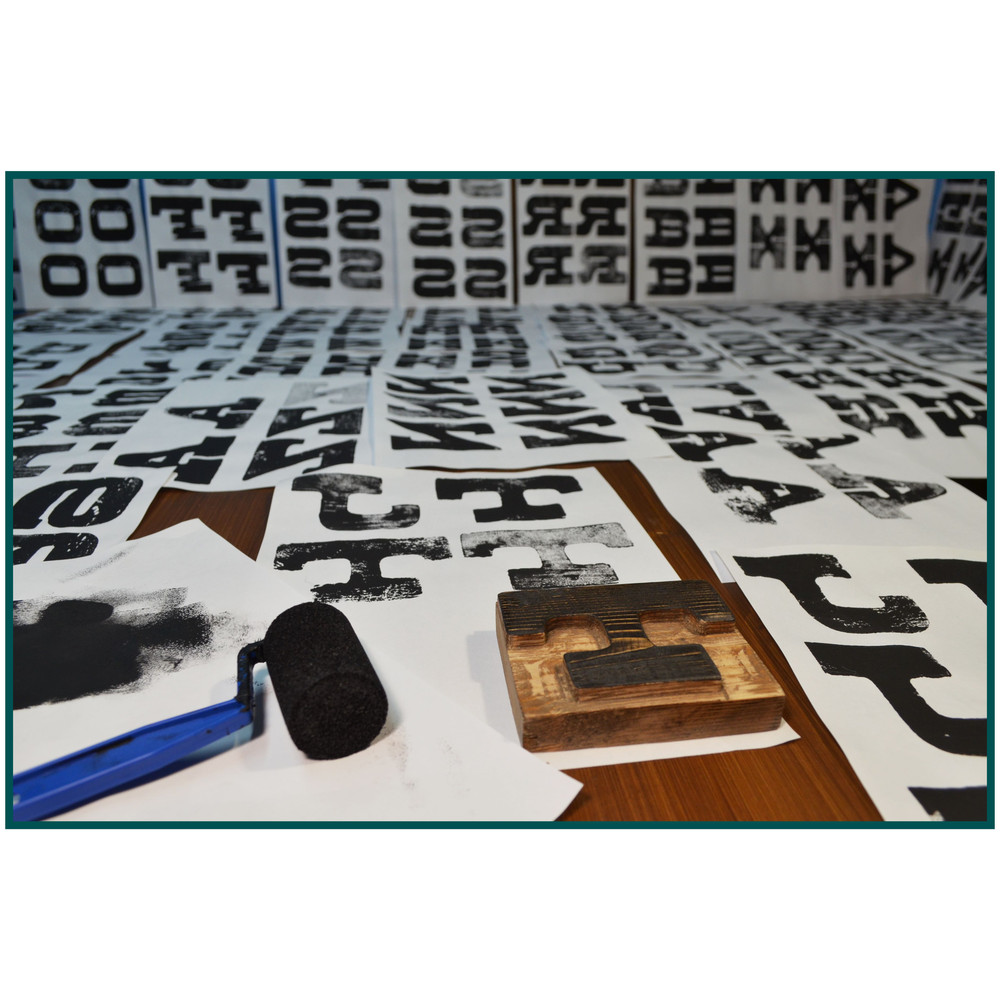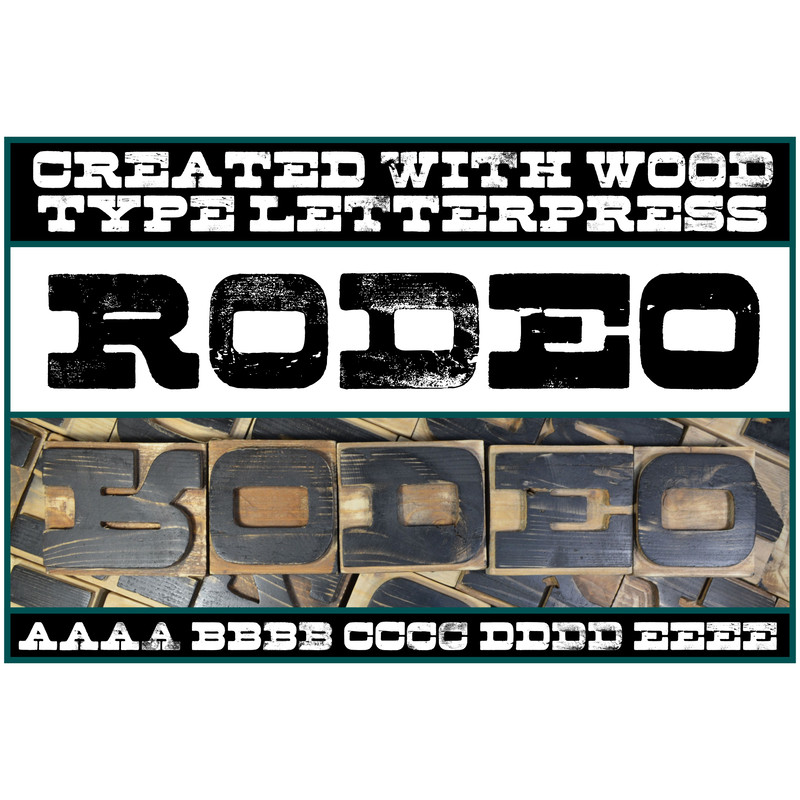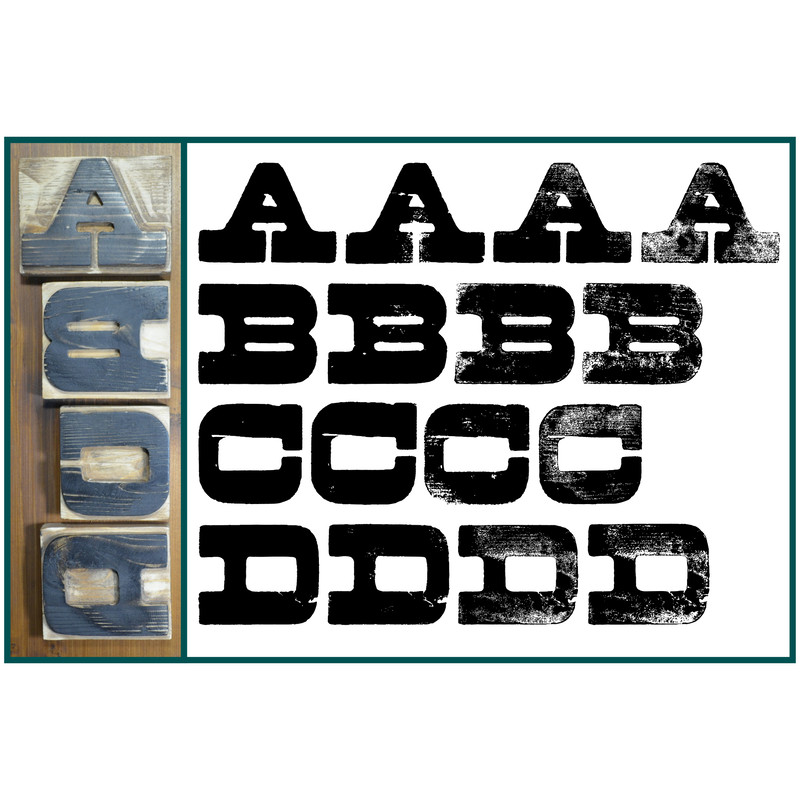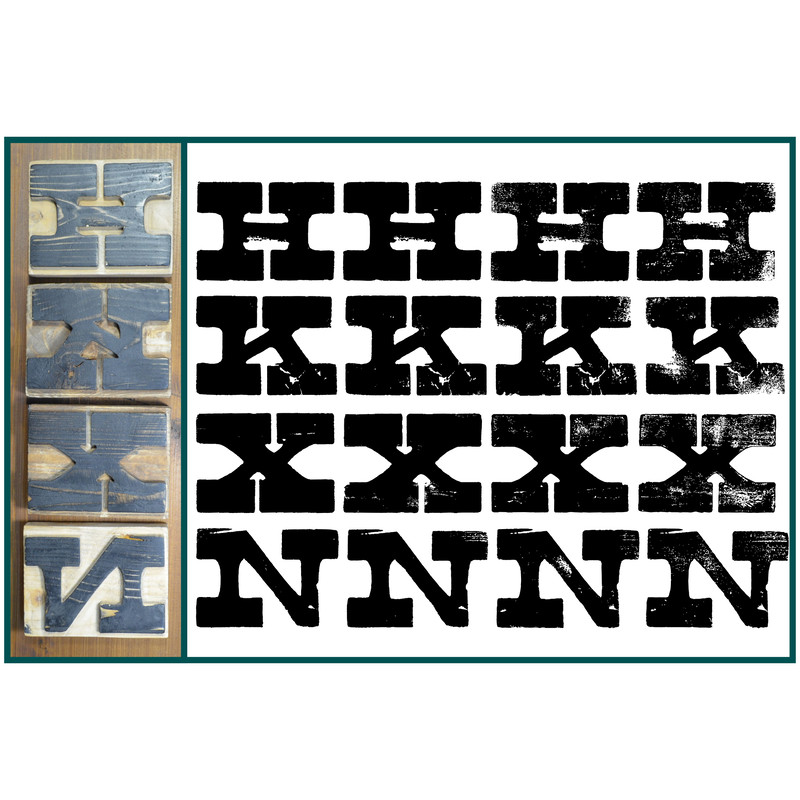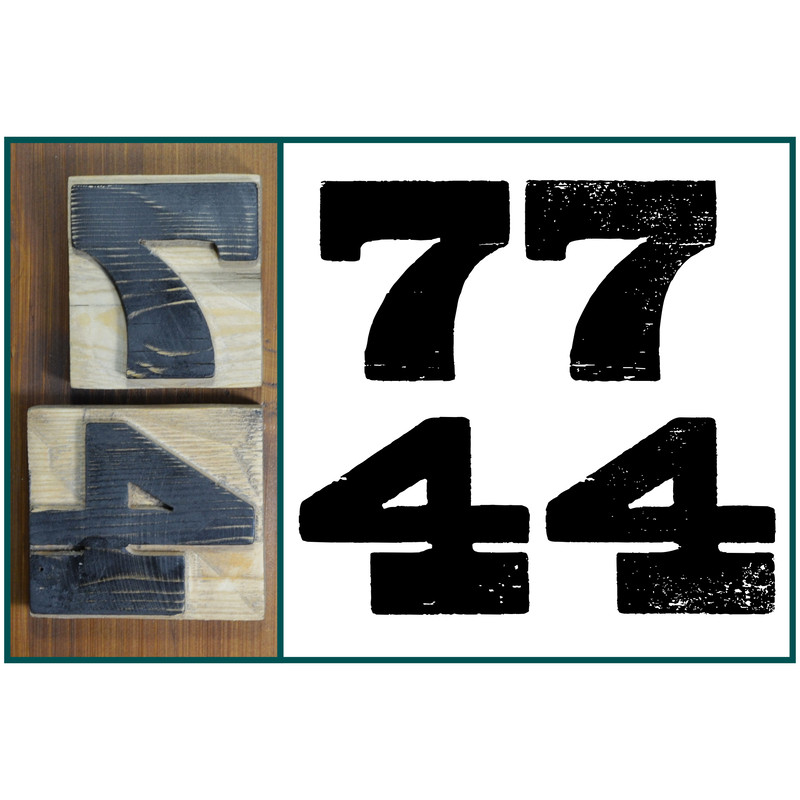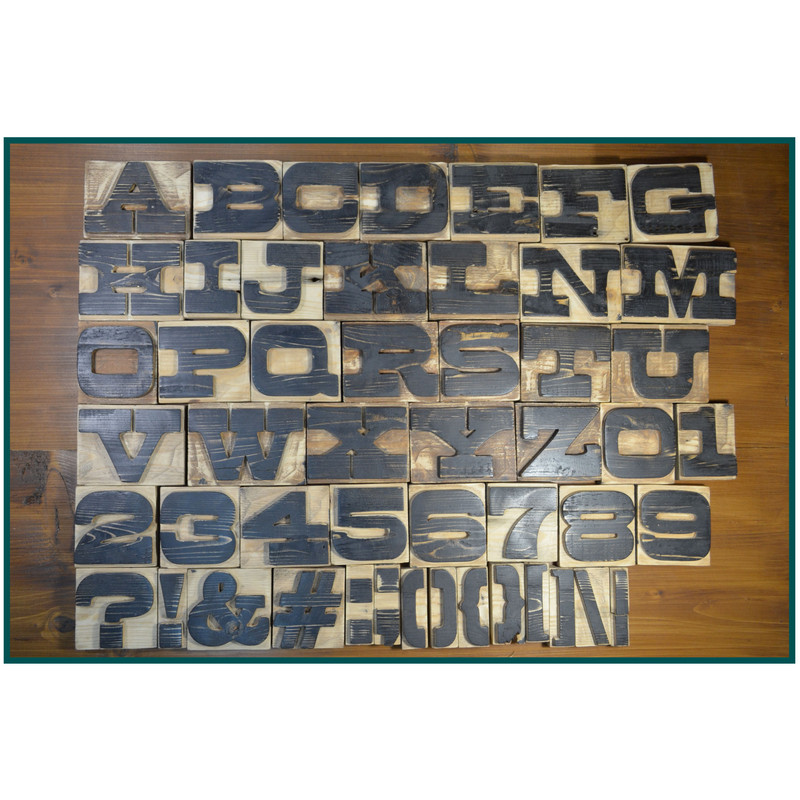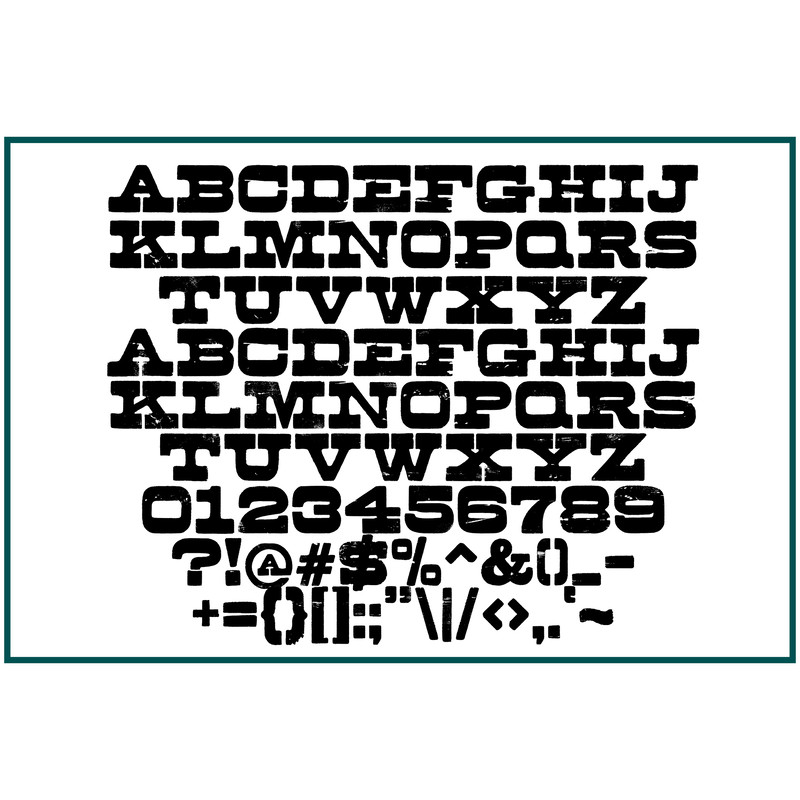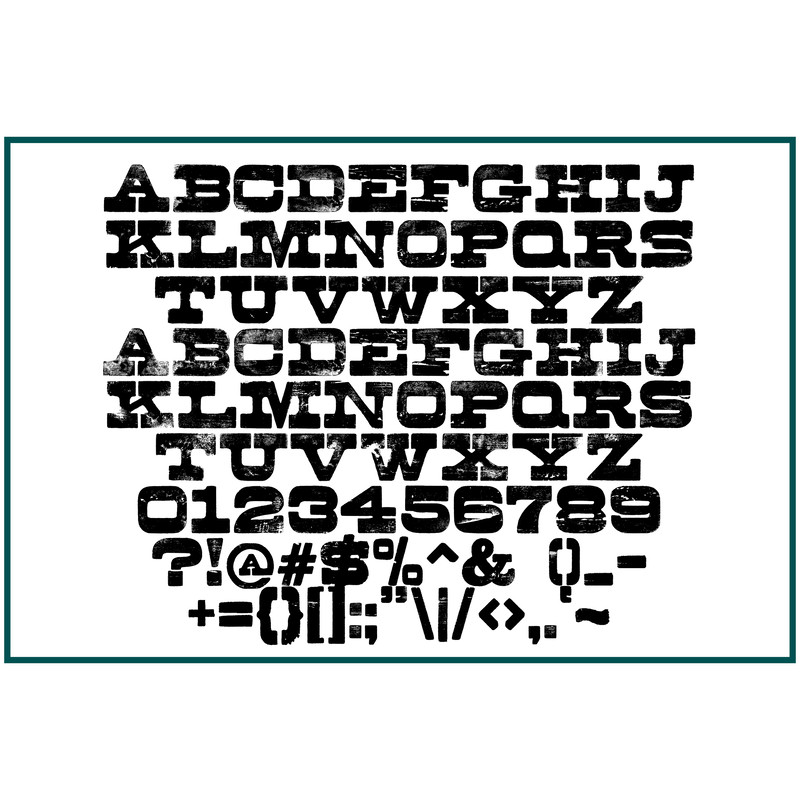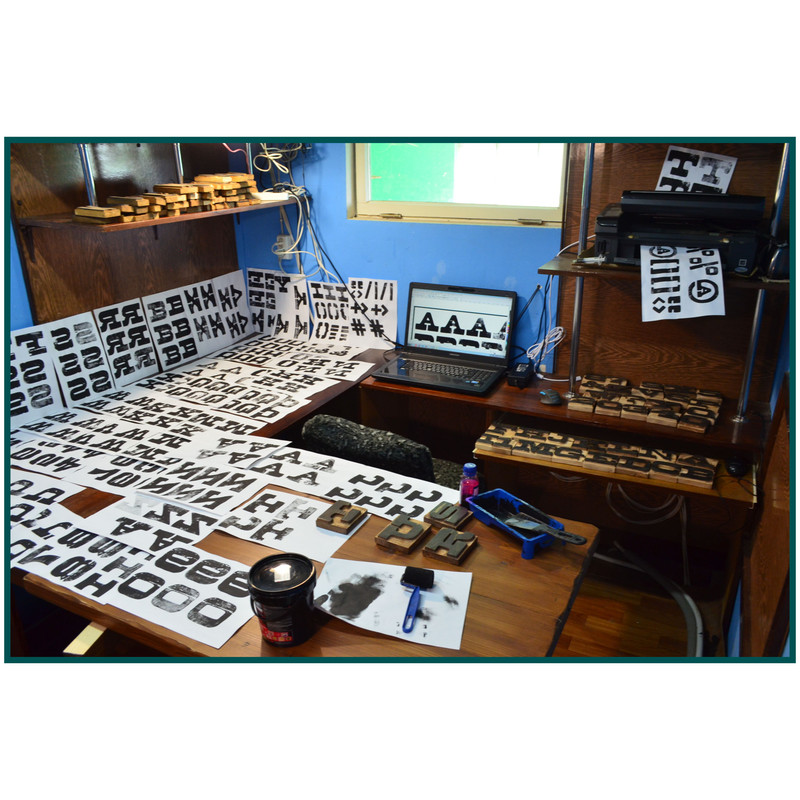
How it's made: Each individual glyph was carved from wood, pressed, scanned and digitized.
Typeface made using a letterpress appears tactile and real, as opposed to a digitally created design.
Rodeo is full cap typeface, consists of 2 styles – light and heavy.
Uppercase and lowercase were printed differently. In total, each english alphabets has 4 textured options.
You will not find the same texture pattern reoccurring in the font. All texture were made freshly.